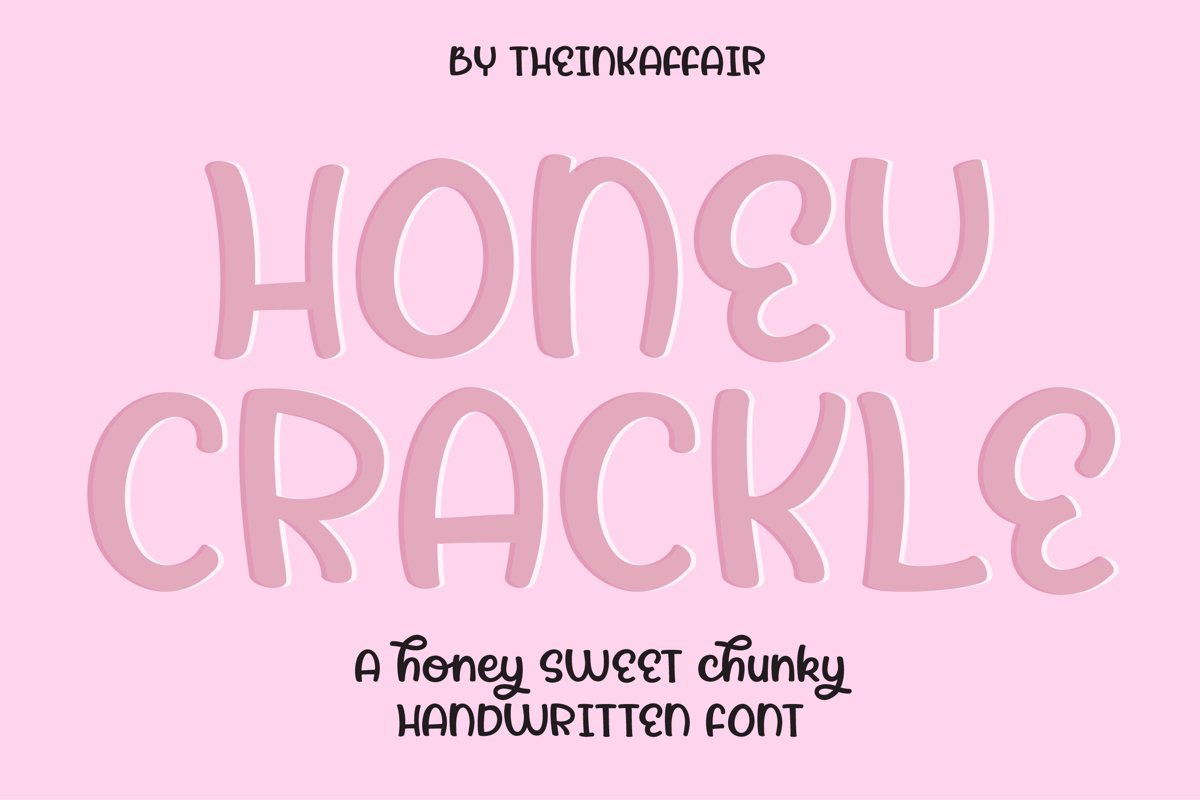
Honey Crackle, a bold chunky handwritten font
Honey Crackle, a bold chunky handwritten font perfect for all things design. Super smooth lines that cut well.